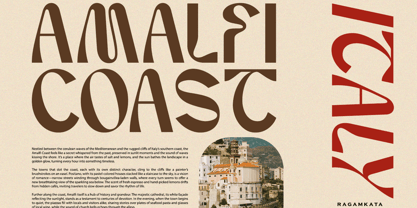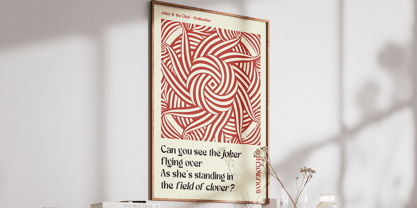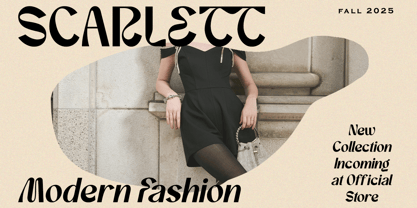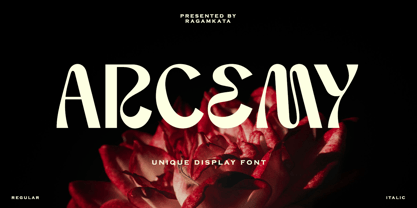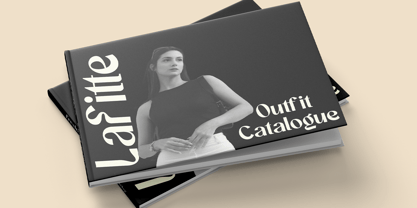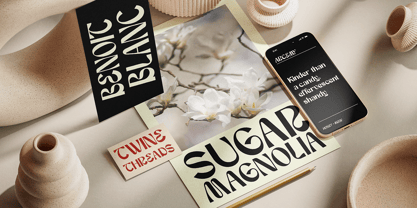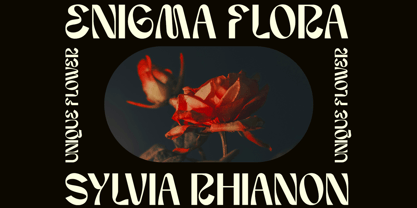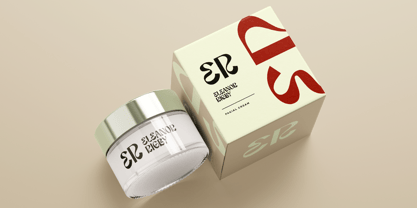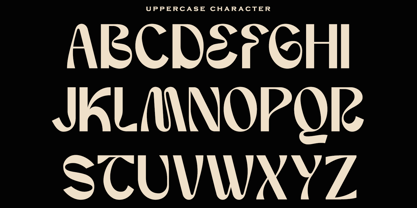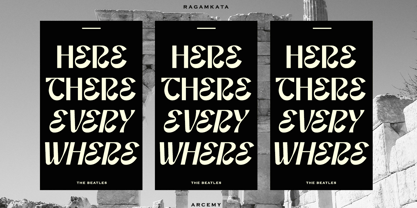
Arcemy
von RagamKata
Die Schriftfamilie Arcemy wurde von Yogiswhara Dio Prakoso Riadi entworfen und von RagamKata veröffentlicht. Arcemy enthält 2 Stile und Familienpaketoptionen.
Introducing Arcemy, a unique display sans font. Arcemy offers versatility for a range of design projects. Its unique letter proportions create a friendly and approachable feel, A carefully curated selection of alternates further enhances the font's rhythmic and dynamic personality. Arcemy is perfectly suited for headlines, titles, branding, posters, and any project where a touch of retro charm and modern sensibility is desired.
- Arcemy
- Arcemy Italic
Designer: Yogiswhara Dio Prakoso Riadi
Herausgeber: RagamKata
Foundry: RagamKata